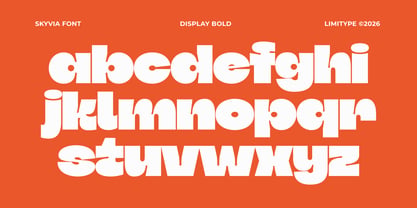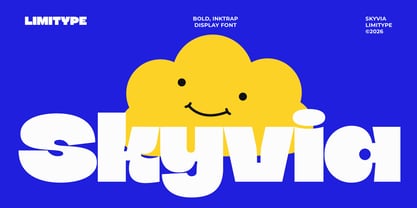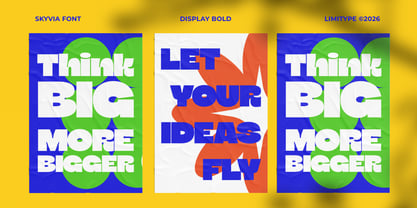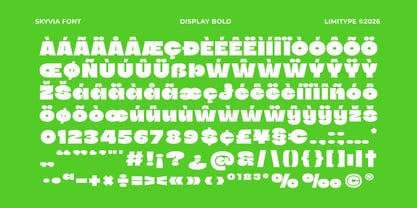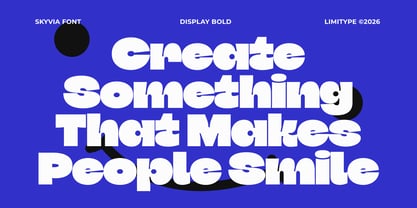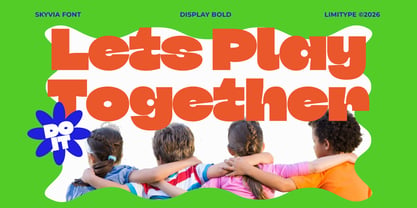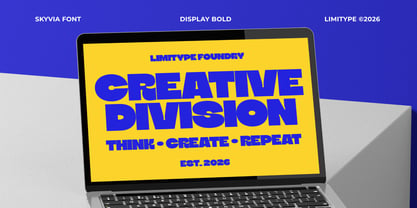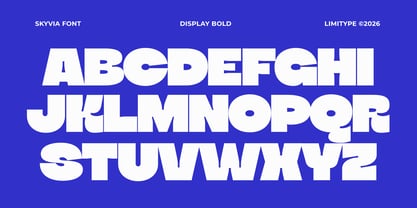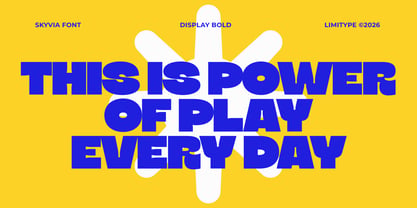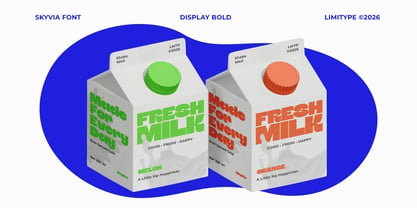
Skyvia
by limitype
The Skyvia Font Family was designed by Muhammad Muammar, Furqan Sudirman and published by limitype. Skyvia contains 1 styles. More about this family
Skyvia is a bold display font featuring heavy letterforms and distinctive inktrap details. Its thick, compact shapes combined with playful cut in details create a fun, energetic, and expressive visual personality. Designed to make a strong visual impact, Skyvia is perfect for posters, headlines, logos, branding, packaging, social media graphics, advertising, and eye catching display designs.
Designers: Muhammad Muammar, Furqan Sudirman
Foundry: limitype